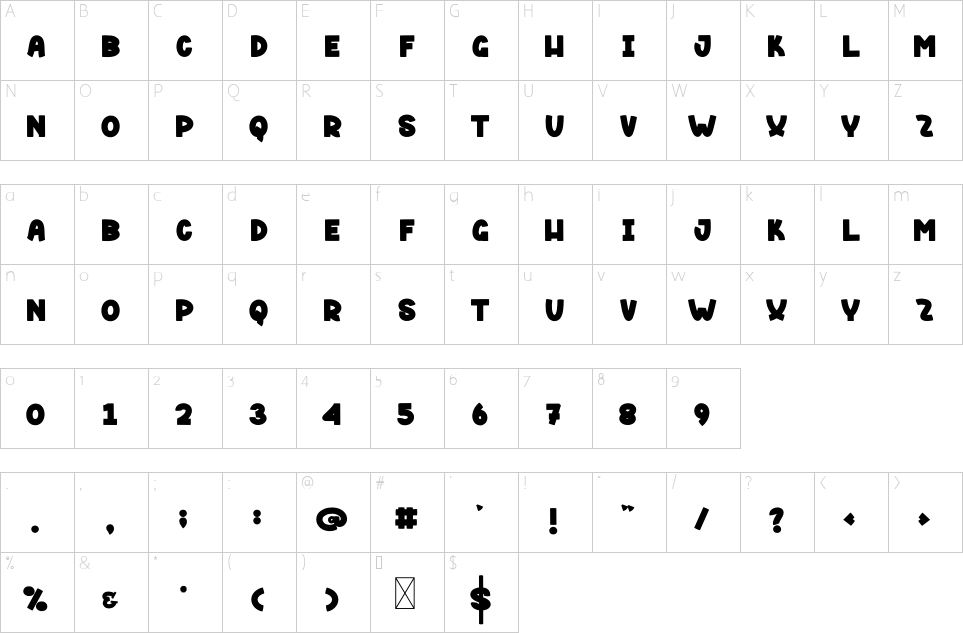
Cokies Summer Font
this is a sweet and friendly handwritten display font. Cute and fun, this font is ideal for writing wedding invitations, cards, or any other design that might need a playful touch!